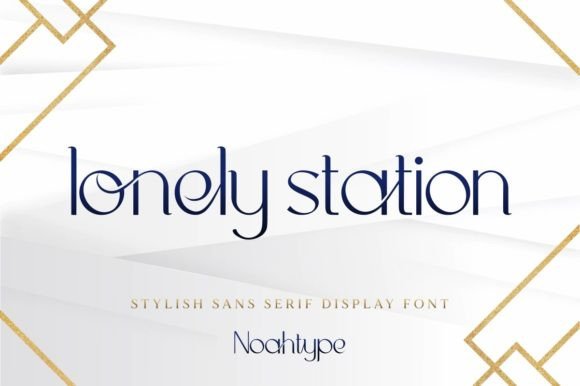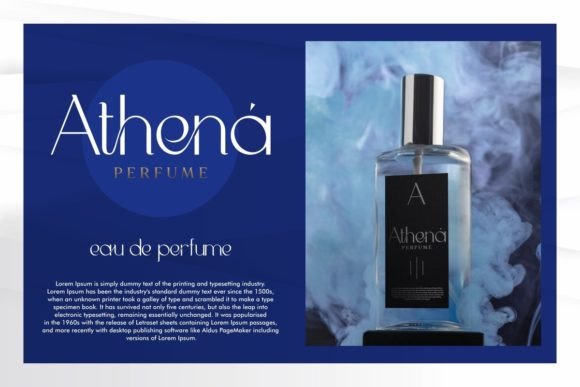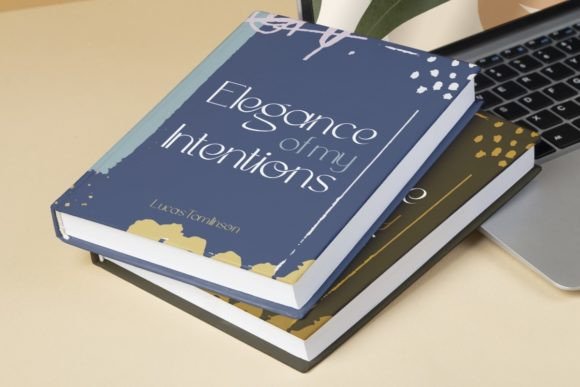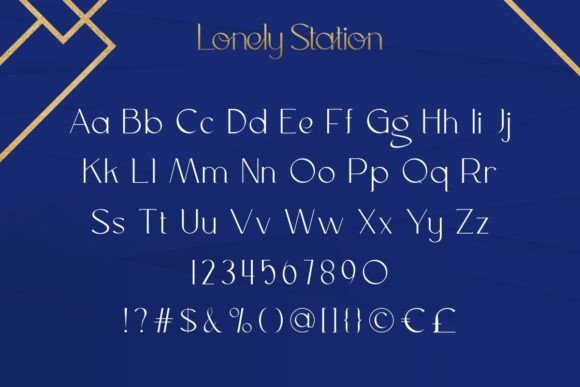
Lonely Station Font
About the Lonely Station Font
The Lonely Station Font offers a perfect balance of form and function for your design needs. Lonely Station Font is a modern sophisticated ligature sans serif display font. This font has sleek lines that are continuous with the letters on the side and still easy to read. It would be the best choice for fashion, beauty product, florist, restaurant, writer, publishing, printing, and more!
Lonely Station excels as a headline font for branding projects, posters, and short-form marketing materials. Its sleek lines and ligatures create a sophisticated yet modern feel, ideal for conveying elegance and a touch of mystery. Avoid using it for body text or long paragraphs; its display nature makes it less suitable for extended readability.
This font’s personality is sophisticated and subtly bold. It would be a strong choice for brands in fashion, high-end beauty, or design-forward restaurants. Consider pairing it with a clean sans-serif like Lato for body copy, or a contrasting serif such as Playfair Display for a more classic feel. A script font like Great Vibes could add a touch of handwritten elegance in specific applications.
For a more modern and minimalist approach, pairing Lonely Station with a geometric sans-serif like Montserrat would create a balanced and contemporary aesthetic. The key is to choose a contrasting but complementary font to provide readability and visual interest.